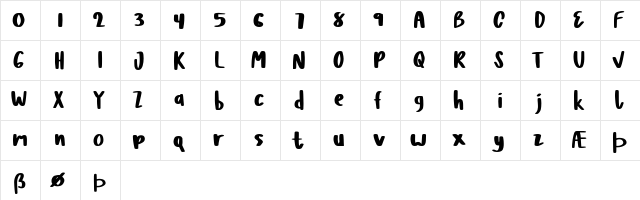
Barela Regular
Design Context for Barela Typeface
Barela is a composed and adaptable typeface that performs quietly and consistently across a wide range of design contexts.